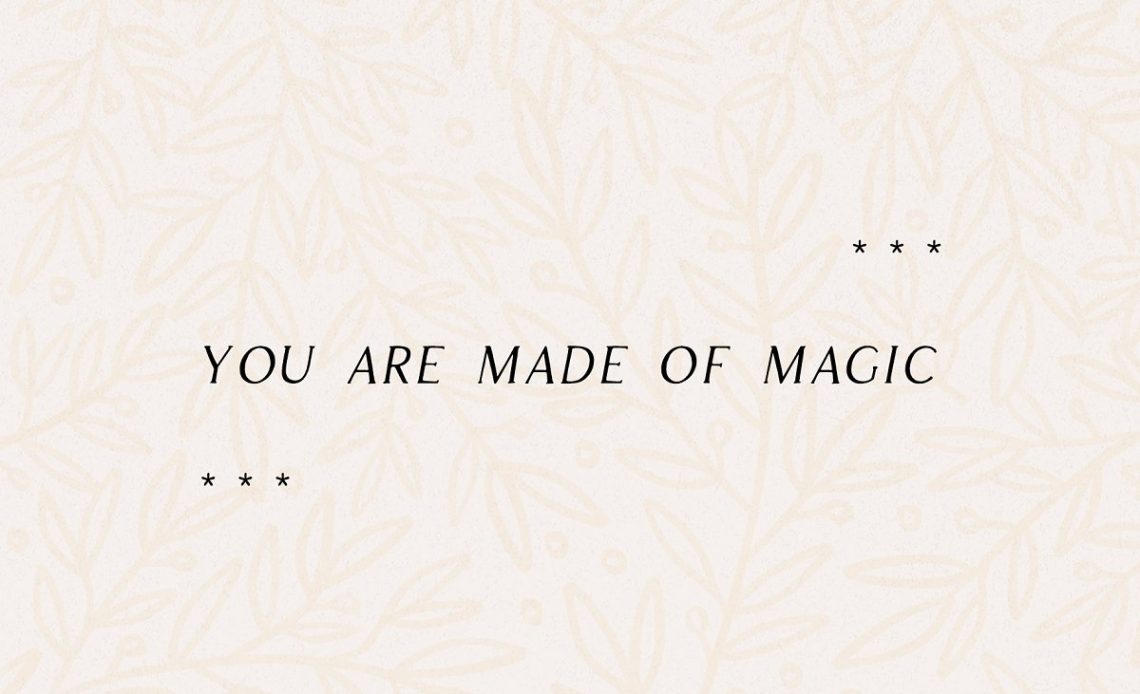
Looking for a sweet and charming font that can add a handmade touch to your projects? Look no further than Apricot - the hand-lettered serif font created by Minna So. With its slightly imperfect look, Apricot is the perfect choice for those looking to add personality and character to their designs.
One of the most striking features of Apricot is its hand-drawn style, which gives it a unique and eye-catching look. Whether you're creating a logo, designing a quote, or working on a blog post, this font will make your text stand out and grab your audience's attention.
But Apricot isn't just about looks - it's also incredibly versatile and easy to use. With four different variations - Regular, Italic, Bold, and Bold Italic - and full numbers and punctuation, this font has everything you need to make your designs pop. And because it's all caps, it's perfect for creating bold headlines and attention-grabbing titles.
Whether you're a designer, blogger, or business owner, Apricot is a font that you won't want to miss. It's perfect for creating invitations, business cards, presentations, and more. And best of all, it's free for personal use or available as a demo, so you can try it out and see how it looks in your designs before committing to a purchase.